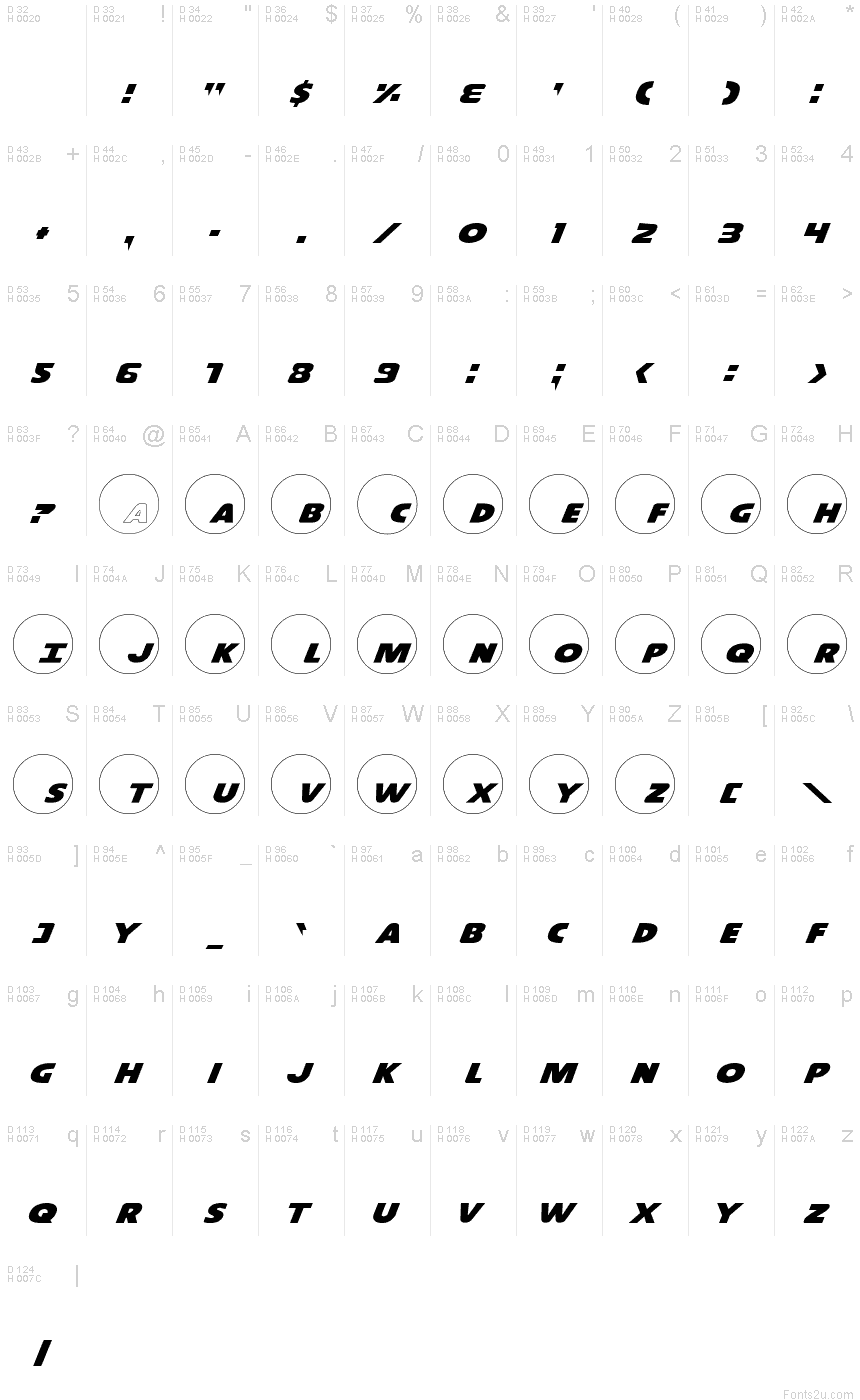
Dot.com Pro
Dot.com Pro font by Iconian Fonts is a free modern display typeface that hits that sweet spot between retro web nostalgia and sharp, forward-driven tech branding. With its strong slanted forms, tight rhythm, and capsule-like curves, the Dot.com family feels fast, wired-in, and ready for motion. The bold, aerodynamic letters look like they’re already in a browser tab or racing across a loading screen.
Using Dot.com Pro, your work instantly signals “digital” without feeling generic. This free font shines on tech logos, esports wordmarks, app splash screens, startup landing pages, event posters, and bold social media graphics. Set it large and tight for maximum impact, then pair it with a clean geometric sans in a lighter weight for body copy to keep everything crisp and readable.